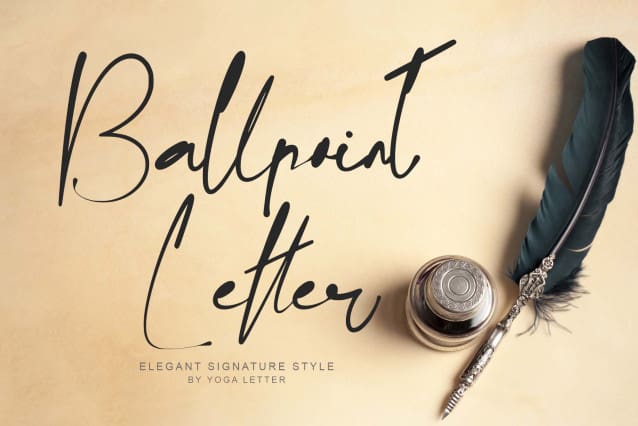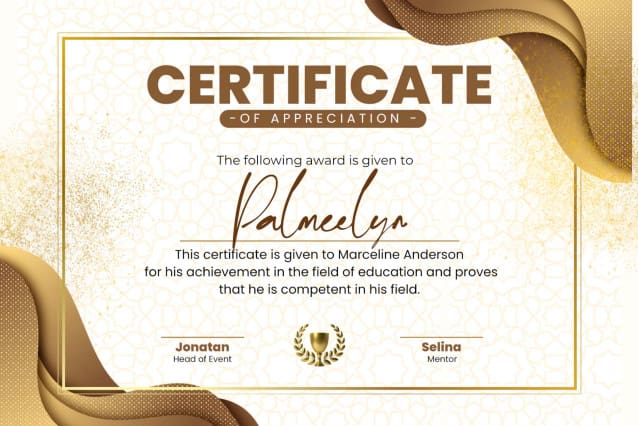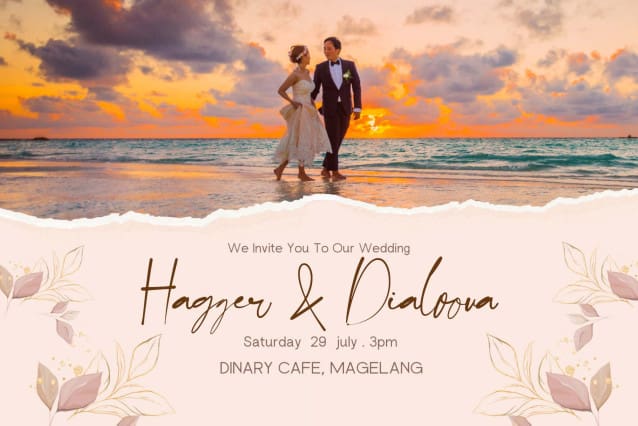
Ballpoint Letter Font
Ballpoint Letter Font is a stylish script font that exudes elegance and sophistication. Its flowing strokes and delicate curves evoke a sense of refinement and grace. Perfect for invitations, branding, and elegant designs, Ballpoint Letter adds a touch of sophistication to any project with its timeless appeal and classic charm.